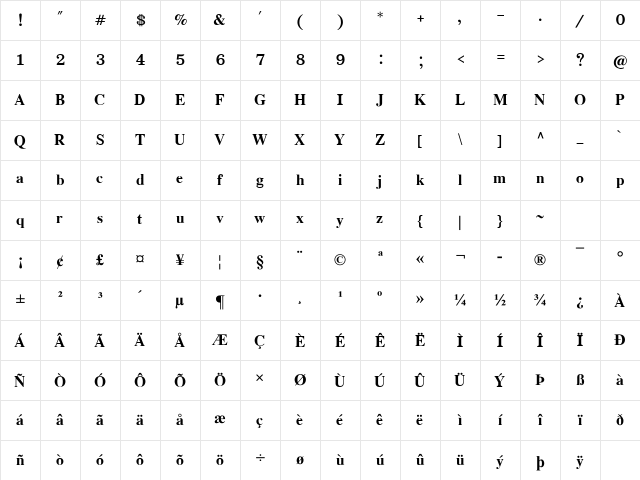
Complete EucrosiaUPC Bold glyph index. Displaying only characters natively supported by EucrosiaUPC Bold font.
EucrosiaUPC is a composed and adaptable typeface that performs quietly and consistently across a wide range of design contexts. Its bold stroke weight gives it real presence on the page.